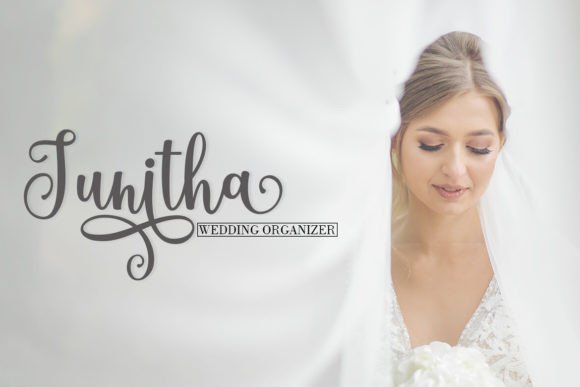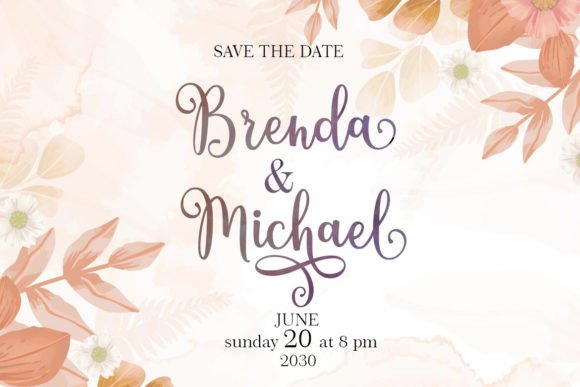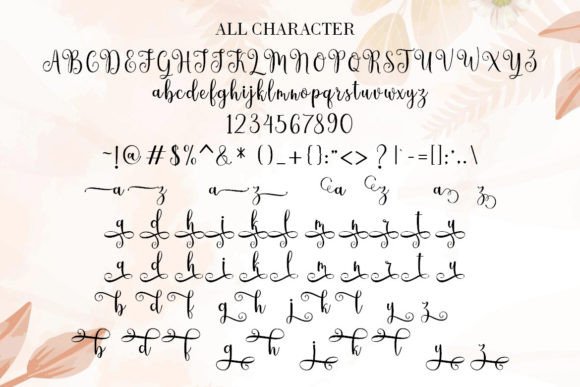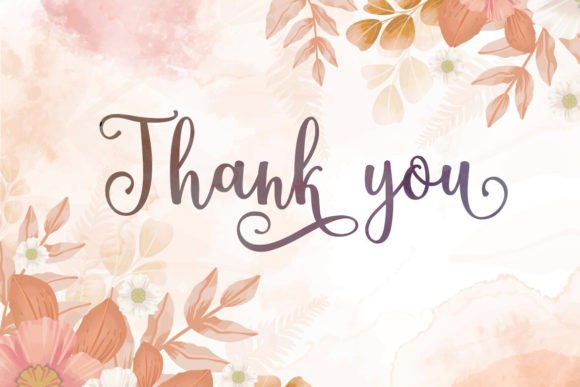
Introduction to Mindless Font
Font Mindless Script is a delicate and elegant script font with a modern and sophisticated appearance.
Its thin letterforms feature fluid strokes and subtle curves, creating a graceful and refined feel The font is perfect for designs that require a sense of elegance and sophistication, such as wedding invitations, branding, or editorial design.